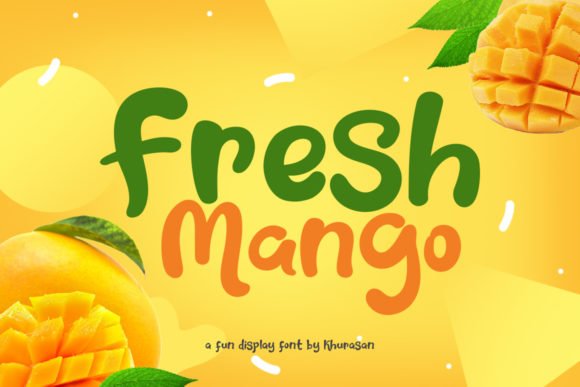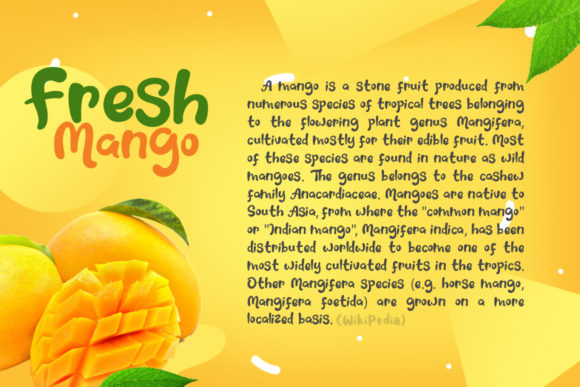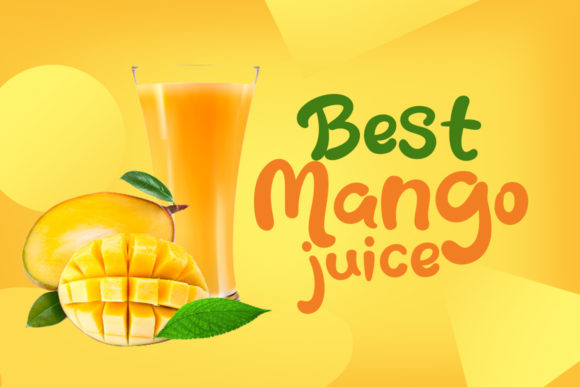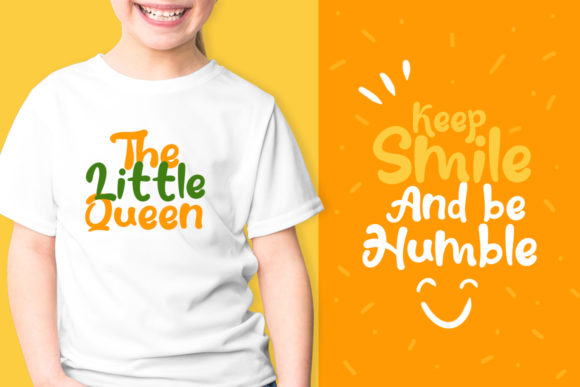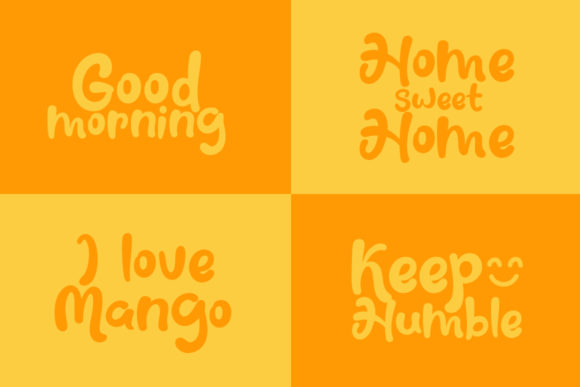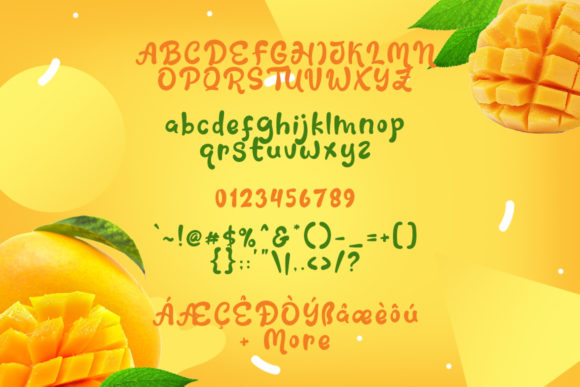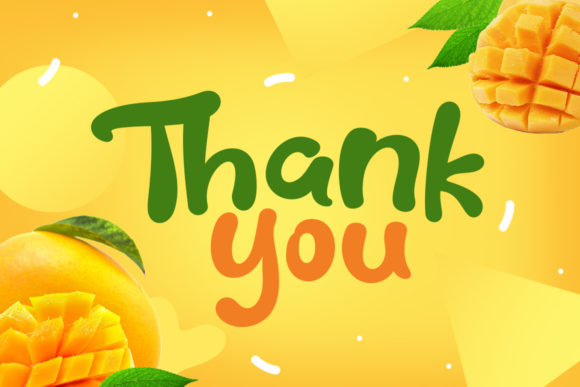
Unlock the Vibrant World of Fresh Mango Font
Have you ever stared at a blank page, searching for the perfect font to bring your creative idea to life? The blank page stares back, taunting you to try something new, something bold, something fresh. And then, it hits you – the perfect font that elevates your concept and makes it stand out in the crowd.
Enter the Fresh Mango Font, a delightful display font that radiates joy and fun. Its versatility makes it an ideal companion for a wide range of projects, from social media graphics to advertising campaigns. With Fresh Mango Font, you can add a splash of vibrancy to your designs and make them truly unforgettable.
For designers, the value of Fresh Mango Font lies in its ability to elevate their creative vision and leave a lasting impression on their audience. By incorporating this font into your projects, you can infuse your work with a sense of playfulness and sophistication, setting you apart from the rest.
Fresh Mango Font Key Features
- Unique Characteristics: Fresh Mango Font features a unique blend of modern and tropical elements, with distinctive curves and lines that evoke a sense of freshness and playfulness.
- Character Set: The font includes a comprehensive set of characters, including uppercase and lowercase letters, numerals, punctuation marks, and special characters.
Fresh Mango Font Review
Overall, I think Fresh Mango Font has some great qualities, but it also has some limitations. Let’s dive in!
- The font is super vibrant and fun to look at, making it perfect for summer-themed designs or tropical-inspired projects.
- The bold weight is great for headings and titles, adding a nice pop of color and energy to your design.
- The font is highly legible, even at smaller sizes, which is a big plus for digital designs.
- The font may be a bit too playful for more formal or professional designs, so use it sparingly in those cases.
- The font lacks a true italic or oblique version, which can be limiting for designs that require more nuanced typography.
- The font’s openness and playfulness can sometimes make it difficult to read in certain contexts, such as in small blocks of text.
Overall, I think Fresh Mango Font is a great addition to any designer’s toolkit, but it’s not a one-size-fits-all solution. Use it when you want to add some fun and energy to your design, but be mindful of its limitations.
Here are some tips to get the most out of Fresh Mango Font:
- Pair Fresh Mango with other fonts to create a unique and eye-catching design.
- Use Fresh Mango for headings and subheadings to create a clear hierarchy of information.
Here are some common use cases for Fresh Mango Font:
- Summer-themed designs
- Travel and adventure branding
- Any design that requires a fun and playful touch
Alternatives to Fresh Mango Font
Fontin is a sans-serif font with a modern feel, suitable for use in logos, titles, and headings. It features a clean and simple design that can add a touch of sophistication to any project. Compared to Fresh Mango Font, Fontin has a more neutral tone and is more versatile in its applications.
Playfair Display is an elegant, high-end serif font ideal for use in luxury brands, magazines, and high-end publications. It features intricate details and ornate flourishes that give it a luxurious feel. Unlike Fresh Mango Font, Playfair Display is more formal and suitable for projects that require a touch of sophistication and elegance.